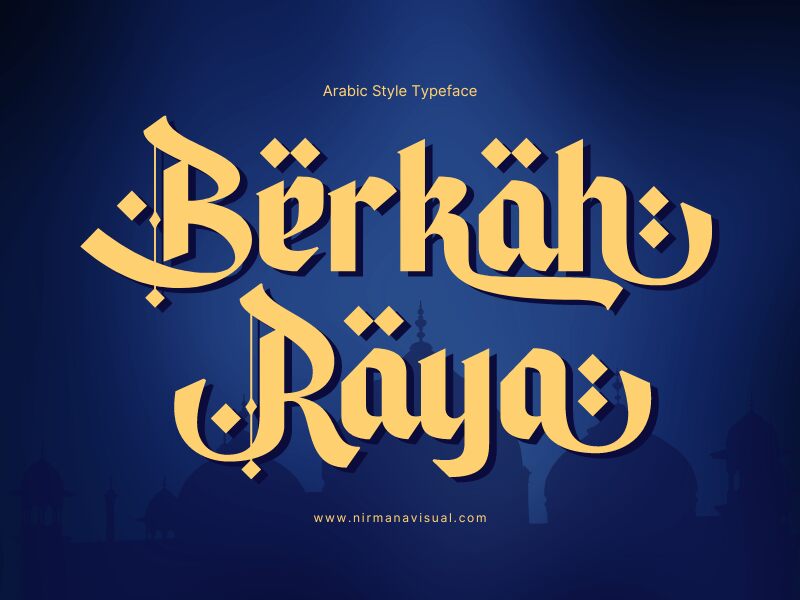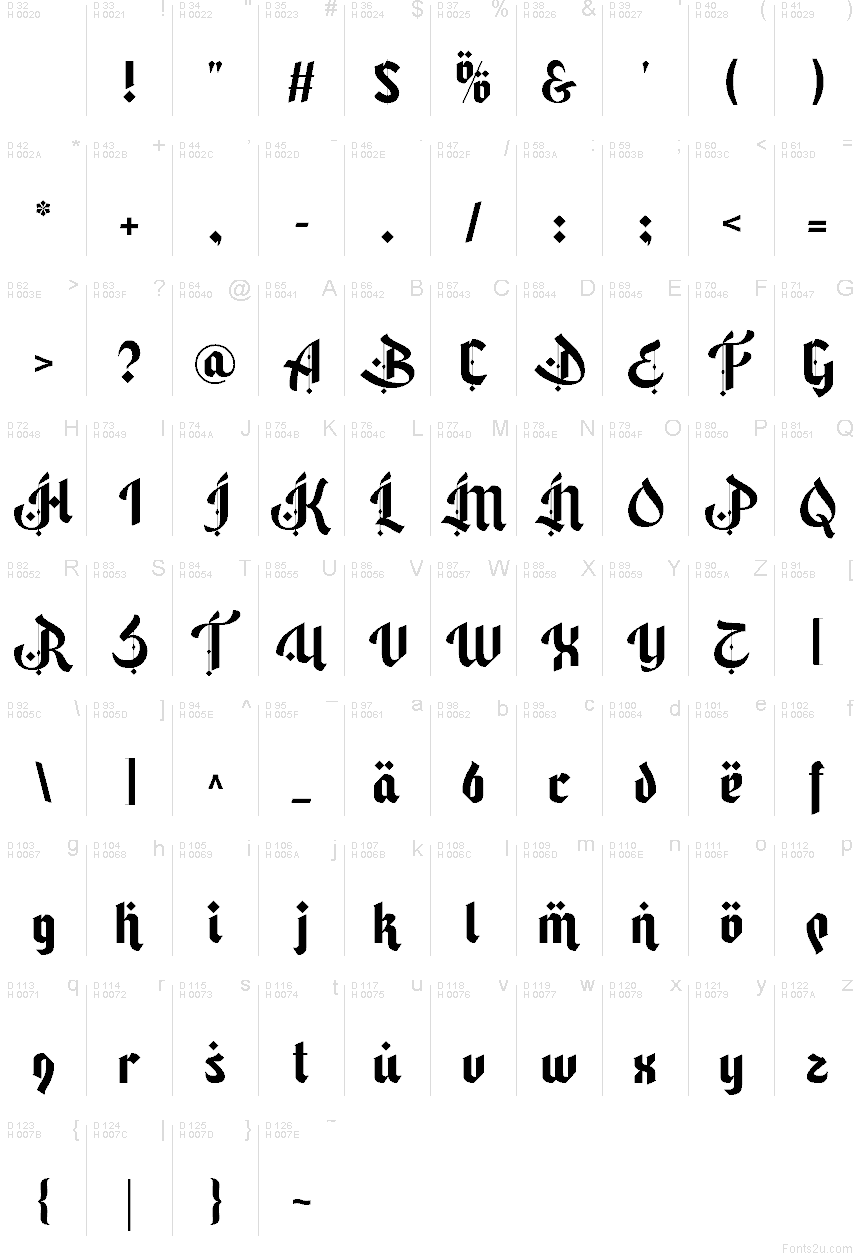
Berkah Raya - Demo Regular
Berkah Raya font by Nirmana Visual is a free faux-Arabic decorative typeface that brings festive Middle Eastern flair to Latin lettering. Its bold strokes, teardrop dots, and sweeping hook-like curves mimic the rhythm of Arabic calligraphy while staying crisp and readable. The letters feel celebratory and ornate, with just enough weight and structure to hold up in large titles and logos.
Using Berkah Raya font, your designs instantly signal Eid, Ramadan, and Middle Eastern themes without requiring complex artwork. This free font shines on event posters, holiday banners, food packaging, prayer journal covers, social media greetings, and restaurant branding. Pair it with a clean geometric sans serif for body text and keep Berkah Raya big and spacious, so those intricate curves and dots have room to breathe.